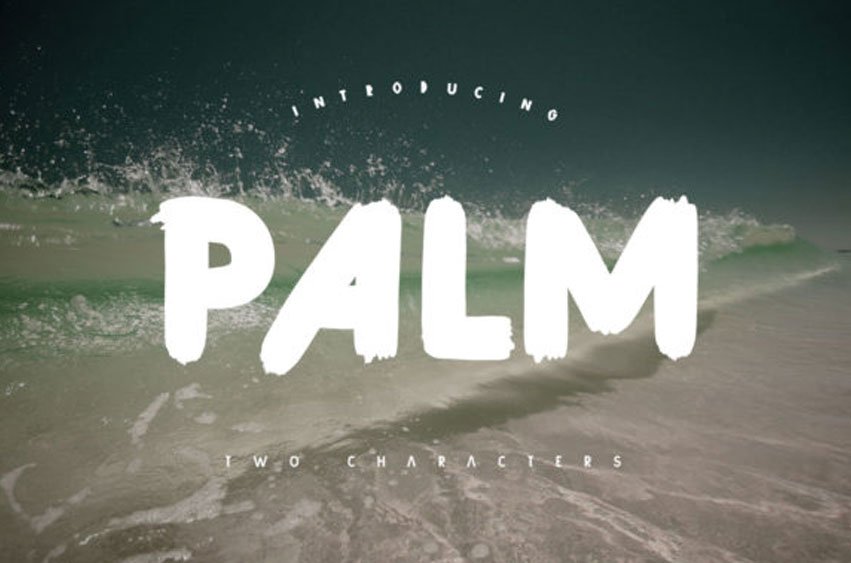
Palm Font
Palm Font is a thick hand-brushed sans serif font that combines boldness and authenticity into one truly original typeface!
It is perfect for your upcoming projects.